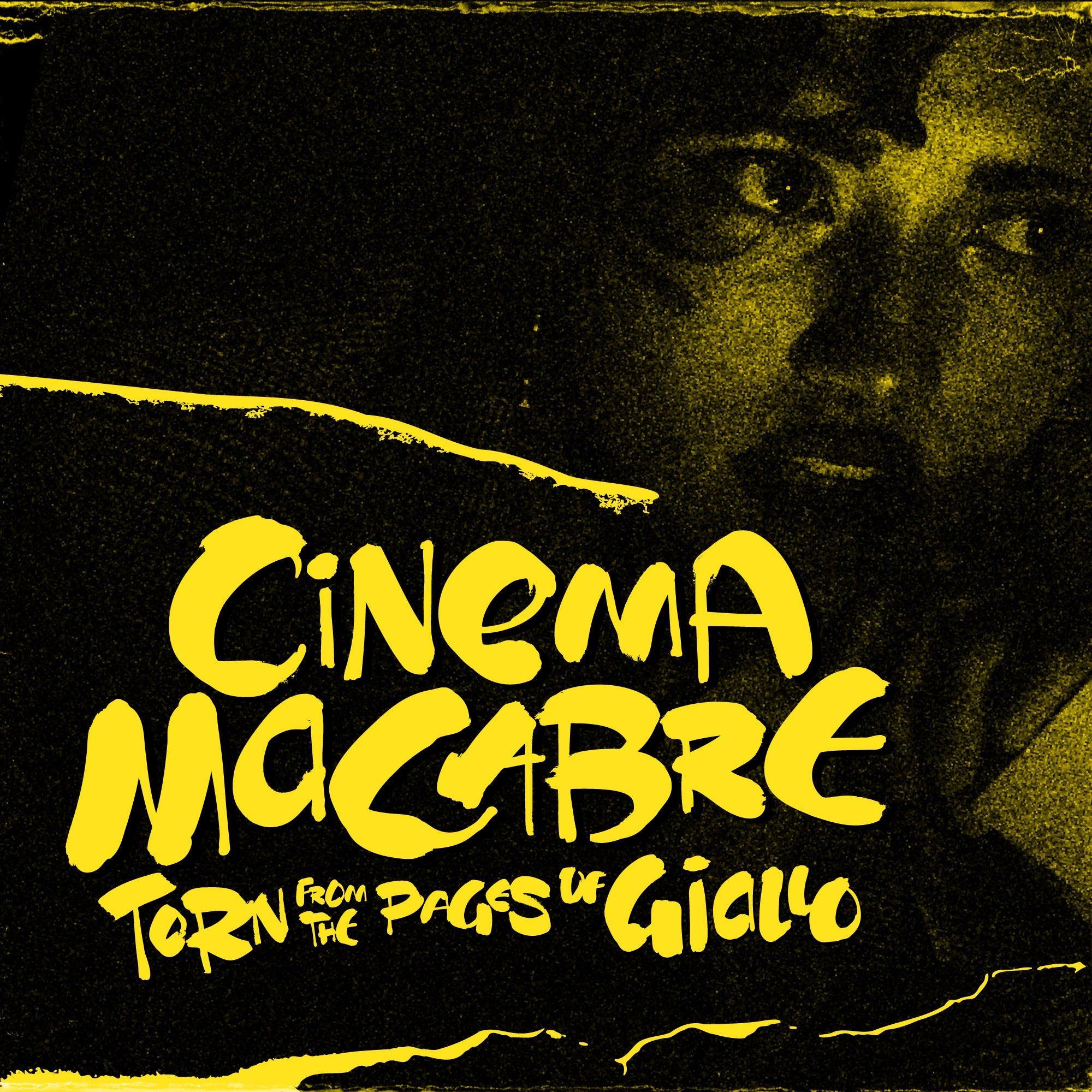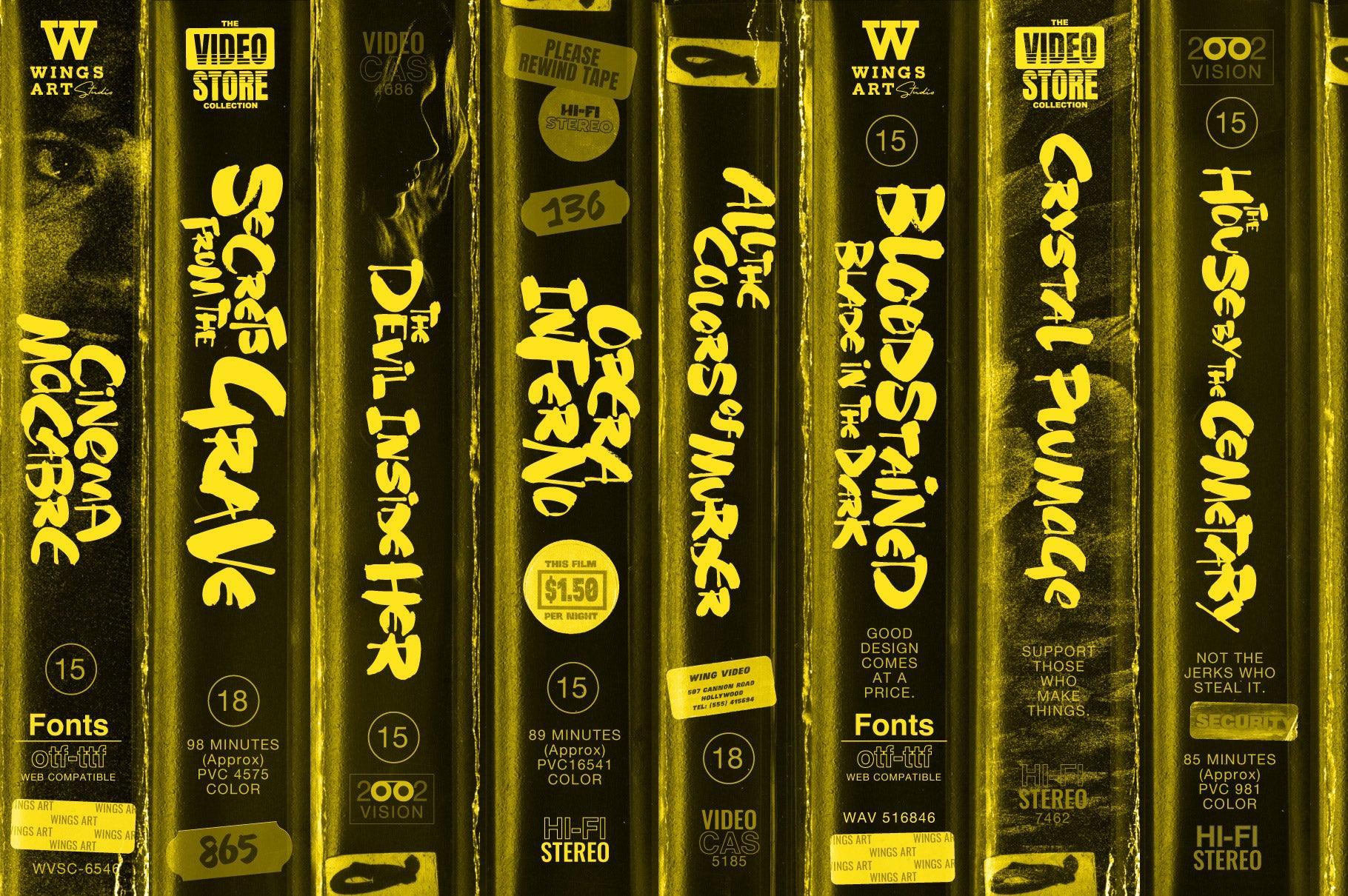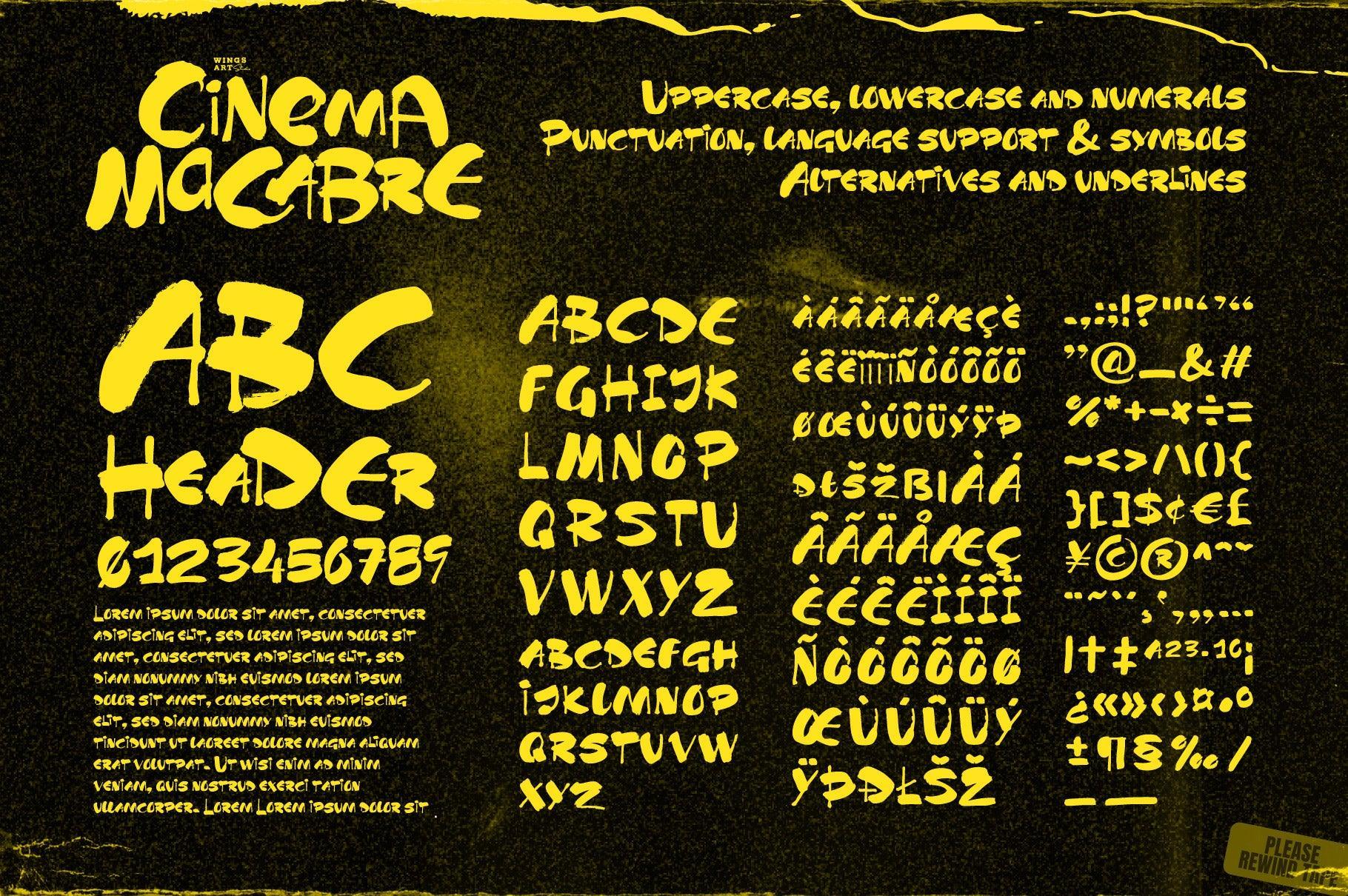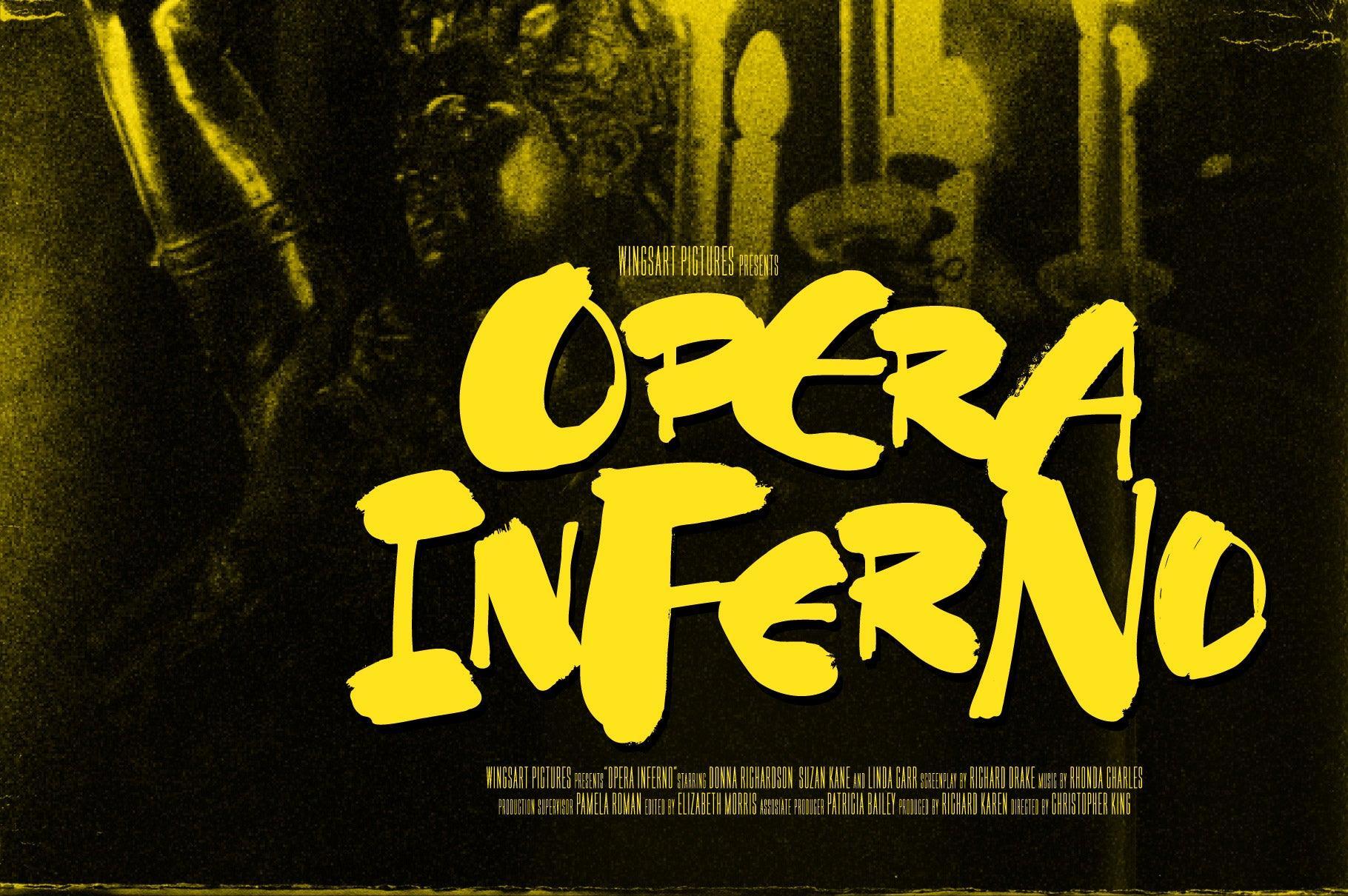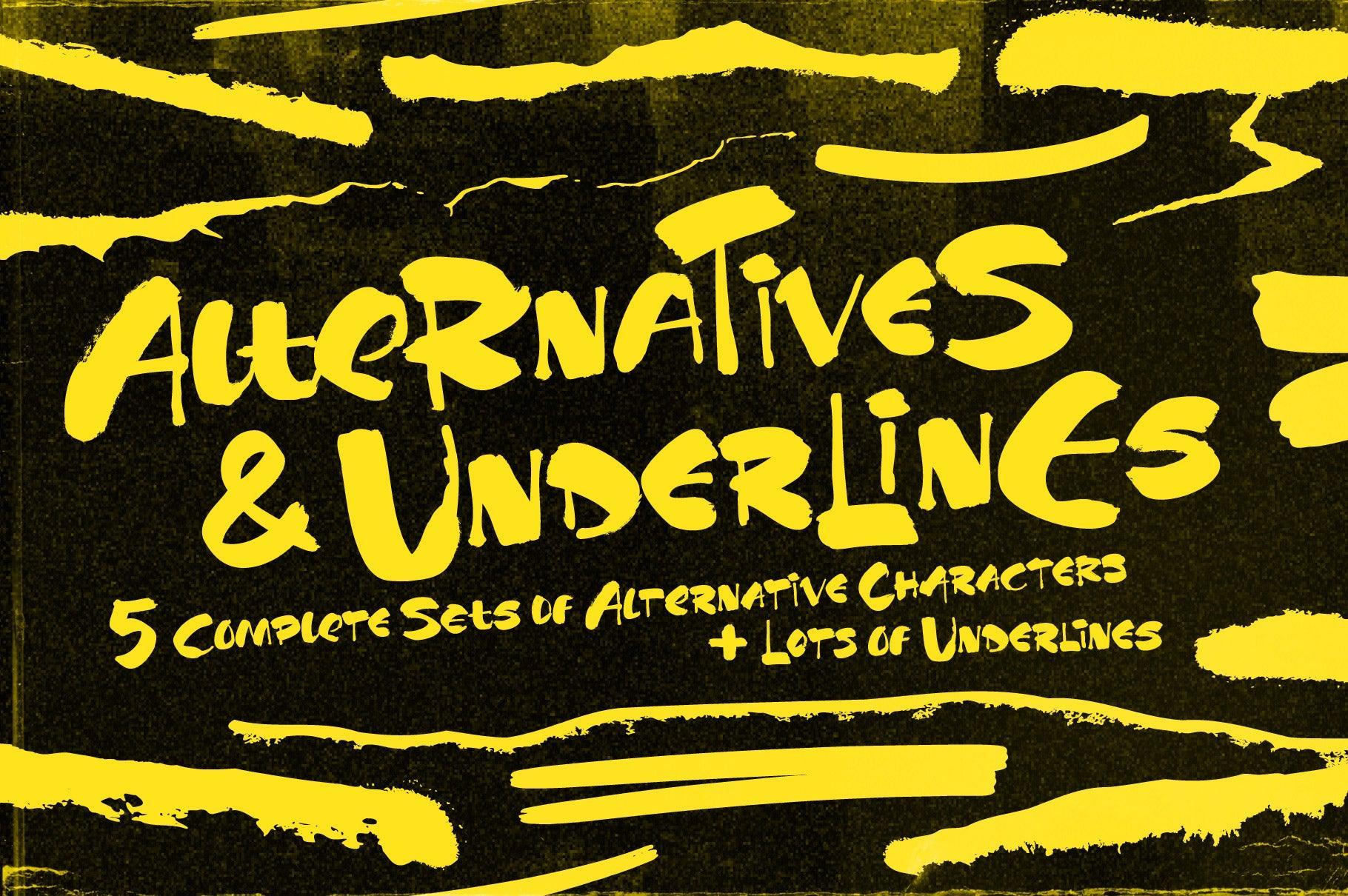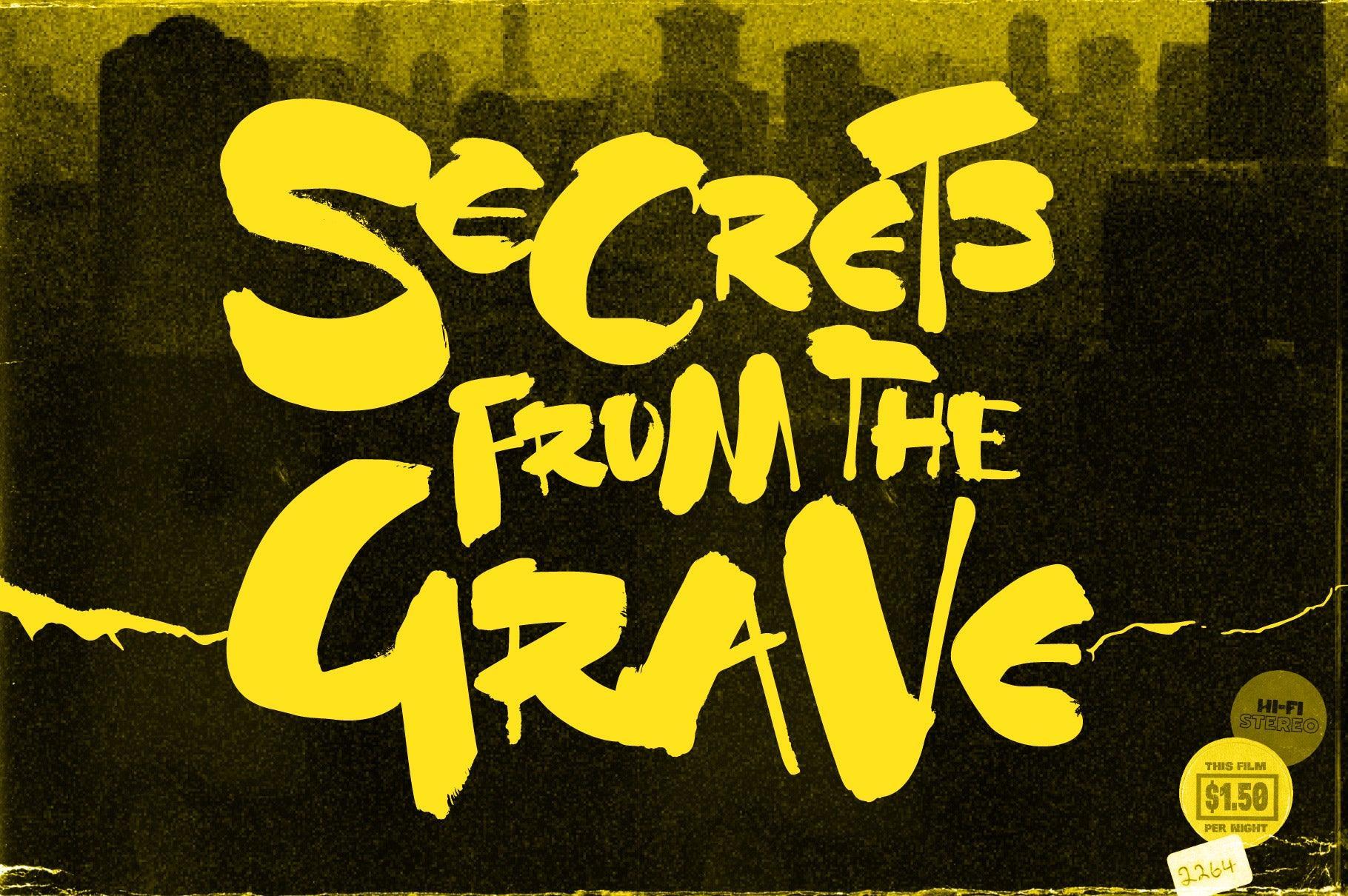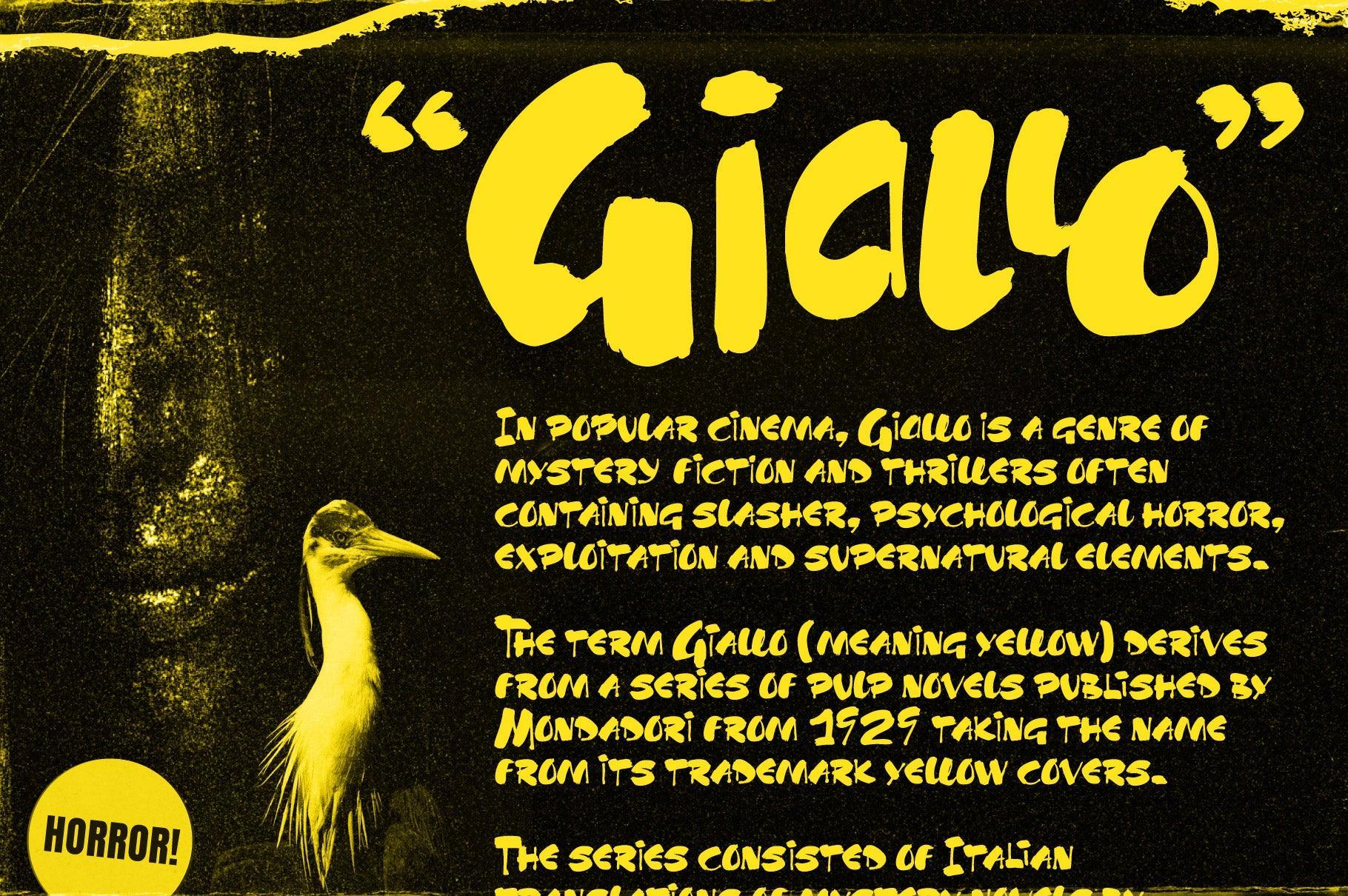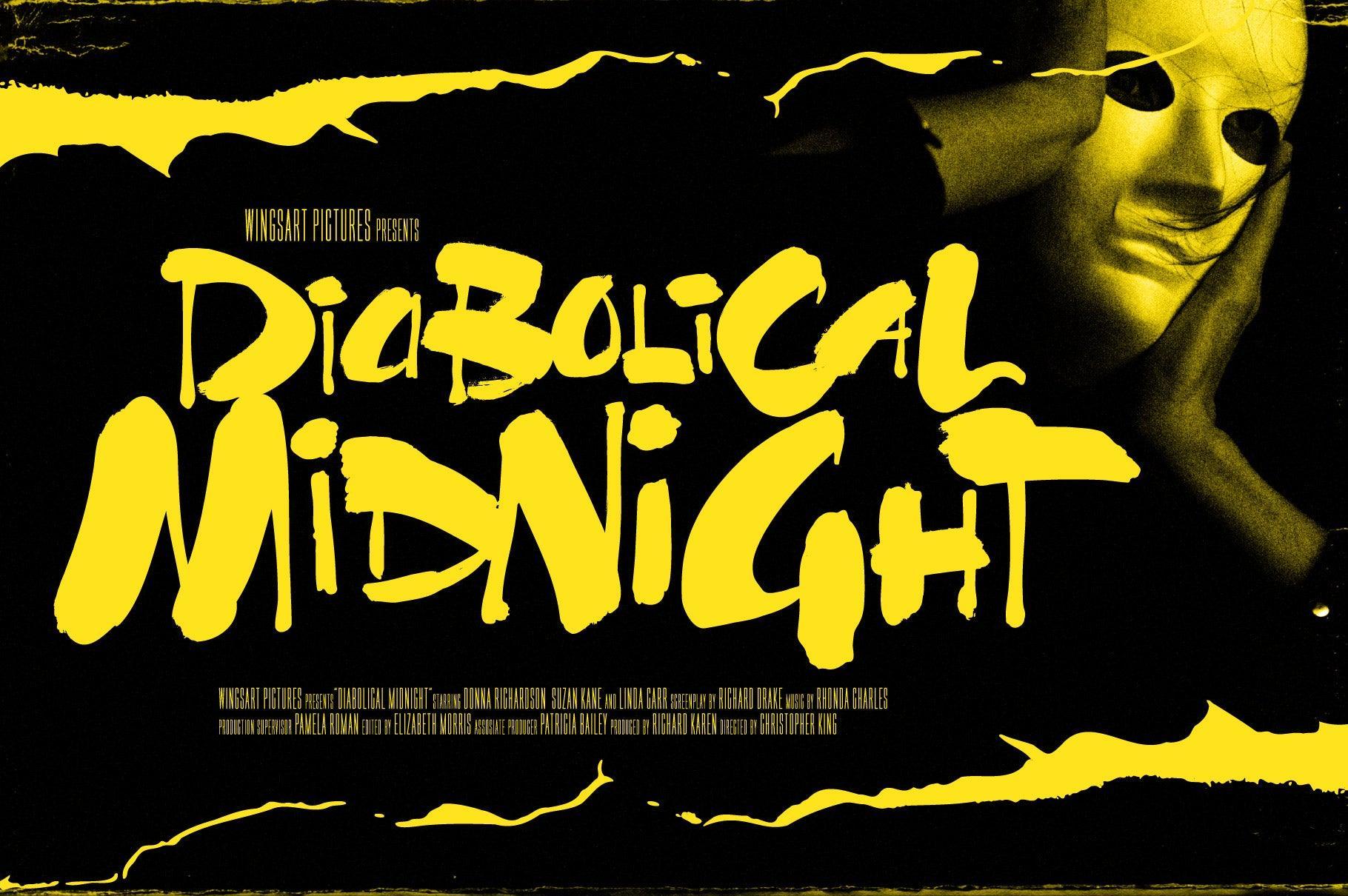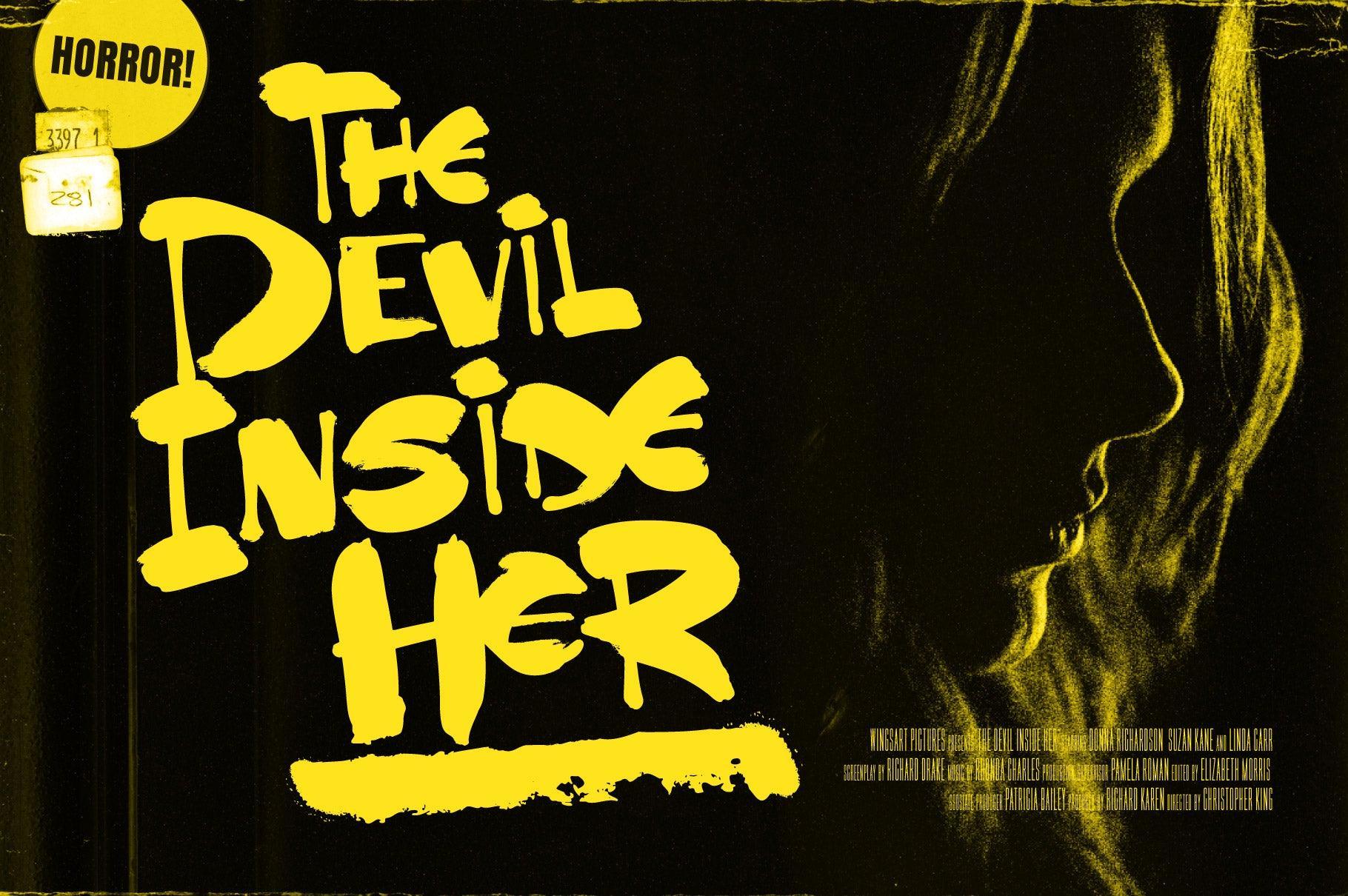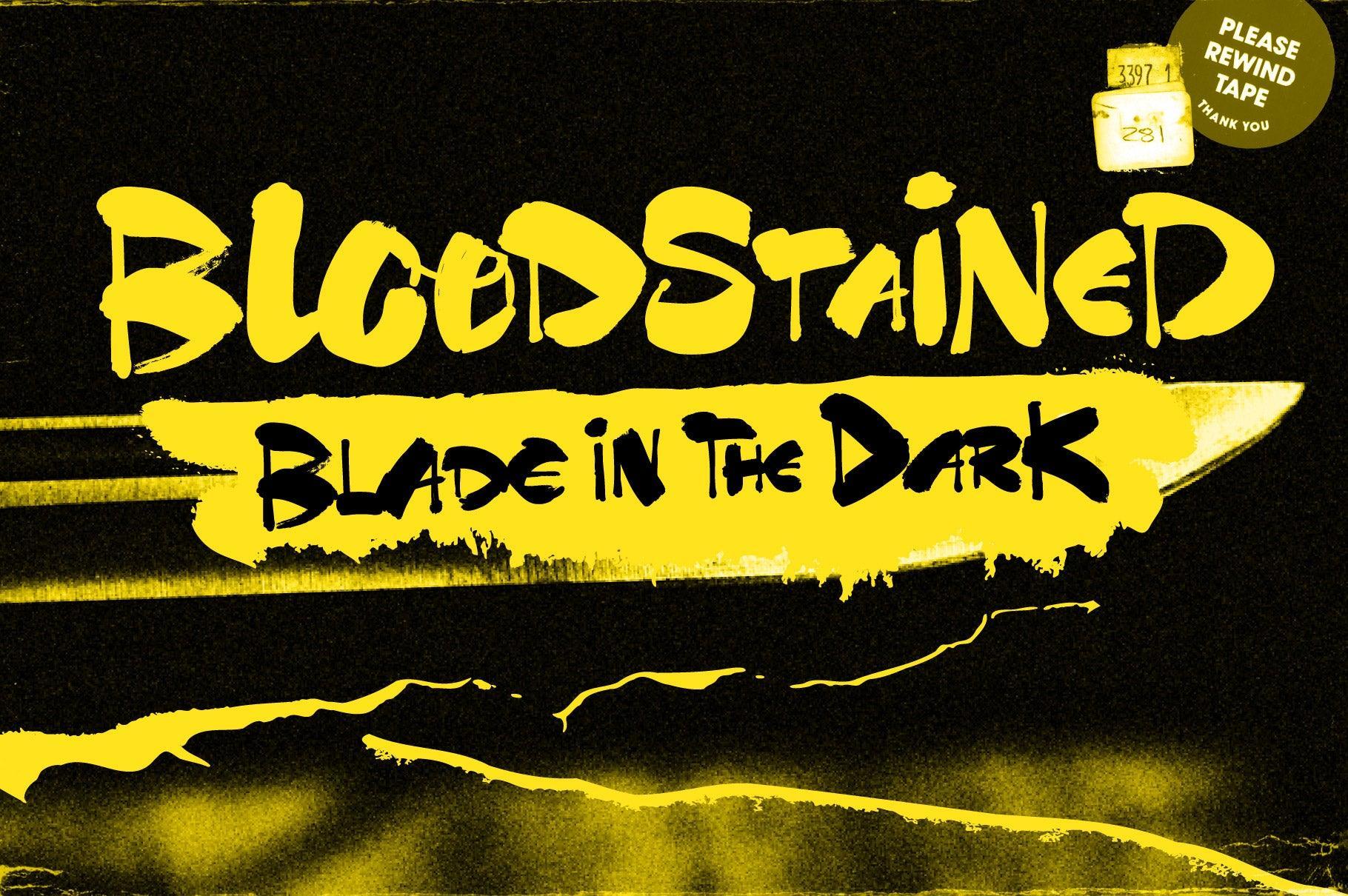
Cinema Macabre: Horror Fonts Torn from the Pages of Giallo
A Hand-drawn Display Font for Creating the Most Diabolical Horror Titles
This loose and inky brush font takes its inspiration from the classic Giallo film posters of the 1960s to 1980s— a cult cinematic subgenre beloved for its stylish visuals, haunting soundtracks, and exploitation-led marketing. It's a devilishly drawn design that aims to capture the feeling of vintage horror, preserving analogue details of old print while remaining versatile enough to work across a variety of digital designs.
The Cinema Macabre font family boasts six fonts, each containing a unique set of uppercase and lowercase characters, as well as numerals, punctuation, and language support. Add to this a host of custom ligatures, underlines, and graphic elements, and you have an essential toolbox for creating truly hand-made-looking title designs.
Cinema Macabre: Horror Fonts Torn from the Pages of Giallo is a hand-drawn display font inspired by classic Giallo film posters from the 1960s to 1980s. The font family includes six unique fonts with uppercase and lowercase characters, numerals, punctuation, language support, and a variety of custom ligatures and graphic elements, designed for creating vintage horror titles.